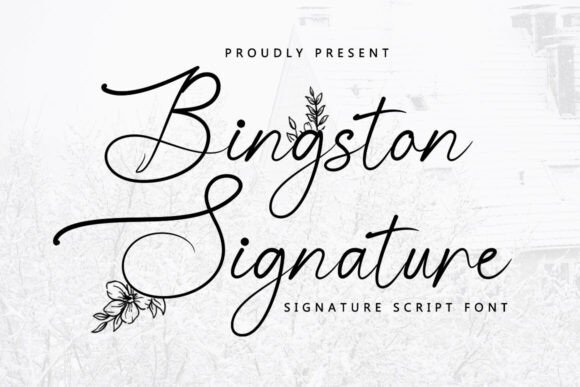
Bingston Signature Font: Elevate Your Creative Projects with Elegance and Sophistication
In the world of typography, a well-crafted font can make all the difference in elevating your creative projects to new heights. Introducing the Bingston Signature Font, a stunning, elegant, and expertly designed typeface that is sure to become your go-to choice for a wide range of applications. With its sleek, clean, and feminine aesthetic, this font is perfect for those seeking to add a touch of luxury and sophistication to their designs.
The Beauty of Bingston Signature Font
Bingston Signature is a very beautiful, elegant, and the best writing font, expertly crafted to be a true favorite among designers and creative enthusiasts alike. This font boasts a classic style that exudes glamour, simplicity, and readability, making it an ideal choice for various formal applications such as invitations, labels, restaurant menus, logos, fashion, makeup, stationery, novels, magazines, books, greeting/wedding cards, packaging, labels, or any type of advertising.
Key Features of Bingston Signature Font
- PUA Encoded: The Bingston Signature Font is PUA encoded, which means you can access all the glyphs and strokes easily, giving you complete control over your design.
- Luxurious Letter Connections: The font features many luxurious letter connections, making it perfect for creating elegant and sophisticated designs.
- Sleek and Clean: The sleek and clean design of Bingston Signature Font ensures that your text is highly readable, making it perfect for body text and headlines.
- Feminine and Sensual: The font’s feminine and sensual aesthetic makes it an ideal choice for designs that require a touch of elegance and sophistication.
Uses of Bingston Signature Font
The versatility of Bingston Signature Font makes it suitable for a wide range of applications, including:
Some of the Many Uses of Bingston Signature Font
- Invitations: Create stunning invitations for weddings, parties, and other special events.
- Logos: Use Bingston Signature Font to create elegant and sophisticated logos for your business or brand.
- Stationery: Add a touch of luxury to your stationery, including letterheads, envelopes, and business cards.
- Magazines and Novels: Use Bingston Signature Font to add a touch of elegance to your magazine or novel.
- Packaging: Create stunning packaging designs that stand out on store shelves.
- Advertising: Use Bingston Signature Font to create eye-catching advertisements that grab attention.
Why Choose Bingston Signature Font?
With so many fonts available, why choose Bingston Signature Font? Here are just a few reasons:
Why Bingston Signature Font Stands Out
- Elegance and Sophistication: Bingston Signature Font exudes elegance and sophistication, making it perfect for high-end designs.
- Readability: The font’s sleek and clean design ensures that your text is highly readable, making it perfect for body text and headlines.
- Versatility: Bingston Signature Font is suitable for a wide range of applications, from formal invitations to advertising.
- PUA Encoded: The font’s PUA encoding makes it easy to access all the glyphs and strokes, giving you complete control over your design.
In conclusion, the Bingston Signature Font is a stunning, elegant, and expertly designed typeface that is sure to elevate your creative projects to new heights. With its sleek, clean, and feminine aesthetic, this font is perfect for those seeking to add a touch of luxury and sophistication to their designs. Whether you’re a designer, creative enthusiast, or business owner, Bingston Signature Font is an excellent choice for any project that requires elegance, sophistication, and readability.